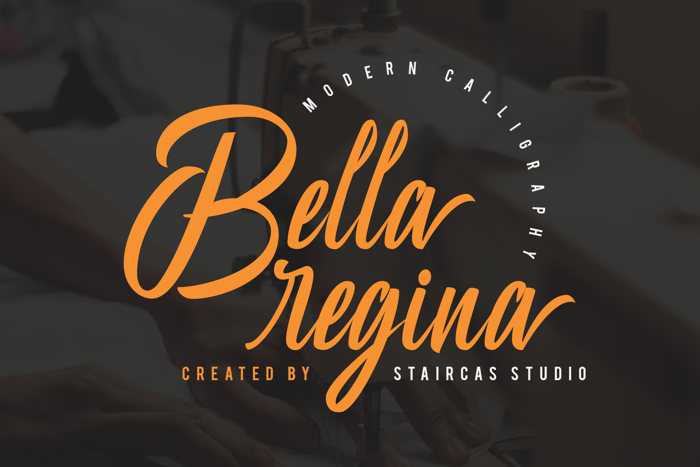
Bella Regina Font
Bella Regina font with modern calligraphy styles. A collection of letters and numbers suitable your projects also great for Logotype, Branding Design, Logo Design, Digital Lettering Arts, T-Shirt/Apparel, Poster, Magazine, Signs, Advertising Design, and any design needs.